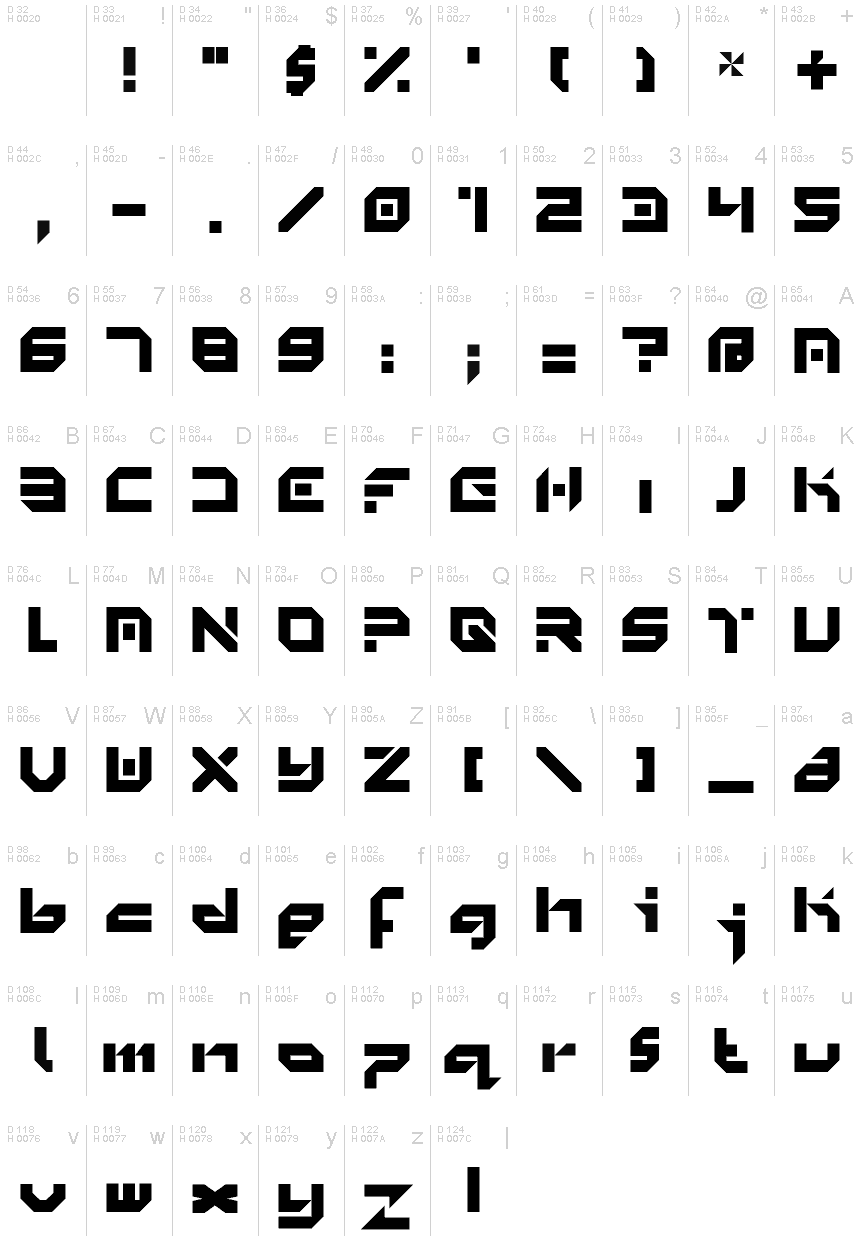
minimal
Minimal by Balazs95 is a bold, expanded display font that exudes a distinct techno-inspired aesthetic. With its angular, geometric letterforms and sharp, defined edges, this font commands attention and evokes a sense of futuristic dynamism. Its expanded width lends an air of grandeur and impact, making it a captivating choice for headlines, branding, and attention-grabbing design elements.
Minimal's striking visual identity makes it a versatile option for a range of applications, from digital interfaces and product packaging to event posters and game interfaces. Its bold, technological character lends itself well to projects that require a sense of modernity, innovation, and technological prowess, making it an excellent choice for contemporary branding, advertising, and multimedia design.